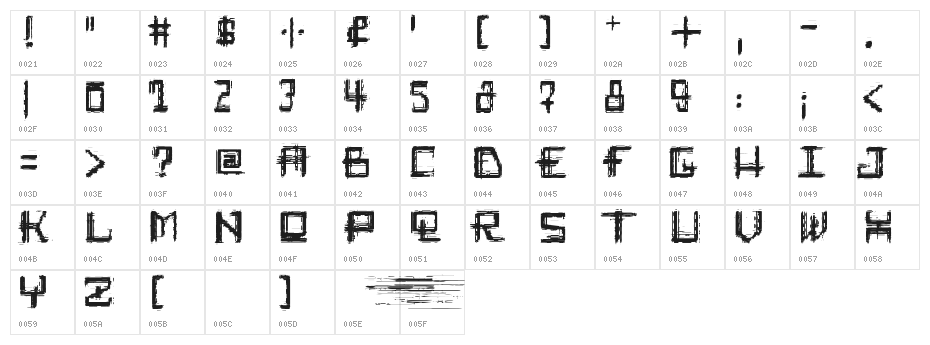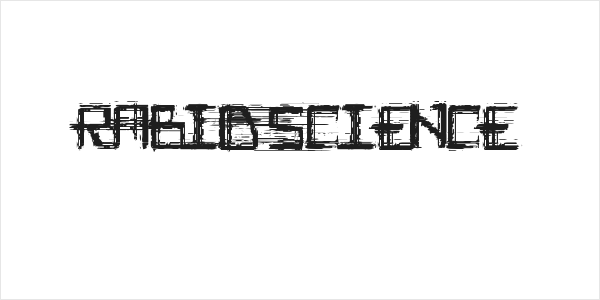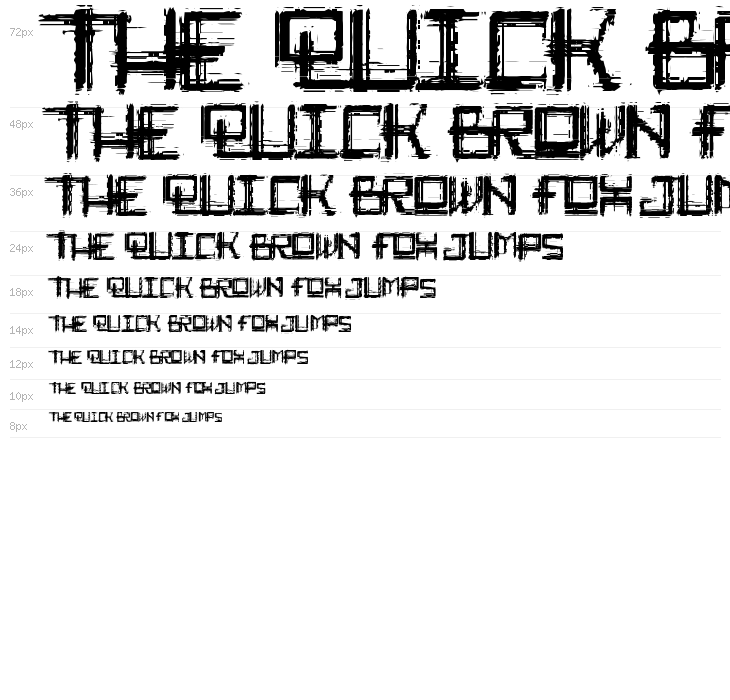
Rabid_Science Font
| 全体的なスタイル | Grunge, Edgy |
| おすすめプロジェクト | Ideal for music album covers, edgy posters, streetwear branding, or any project requiring a rebellious and raw aesthetic. |